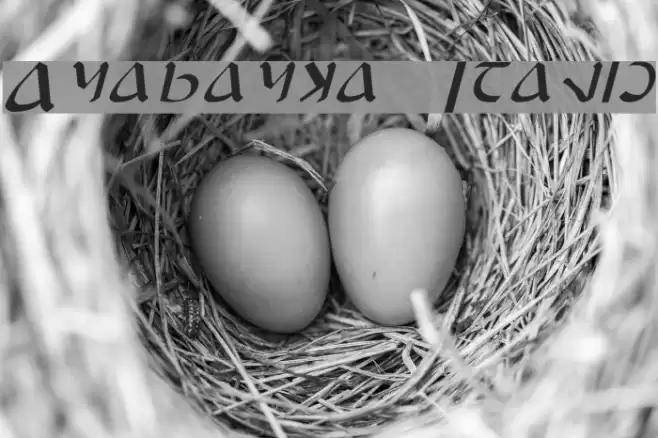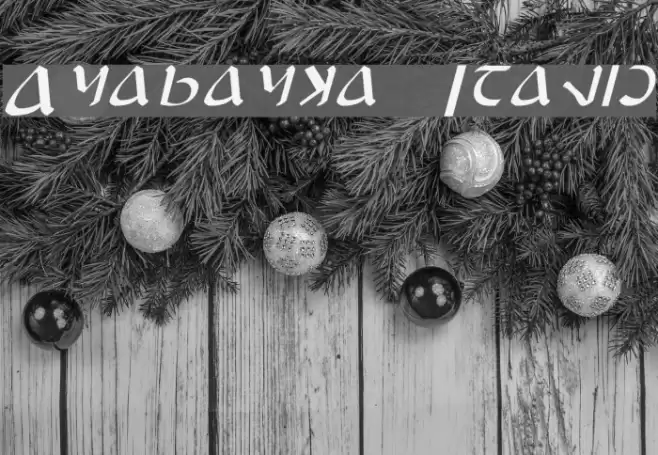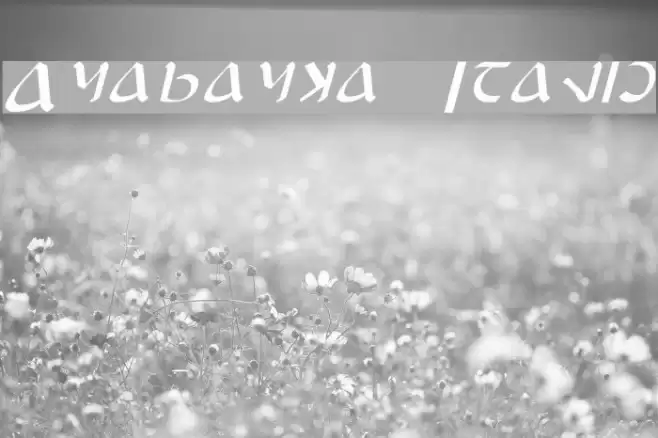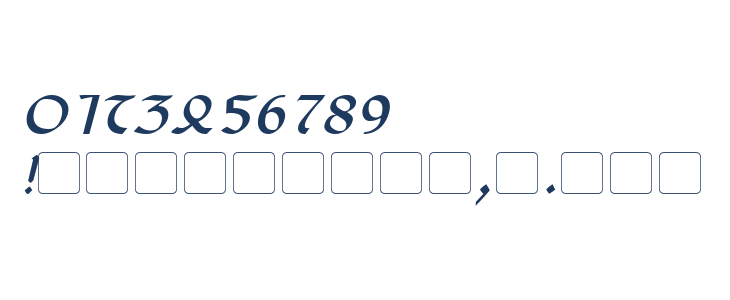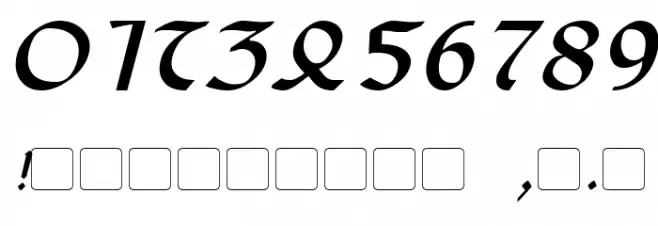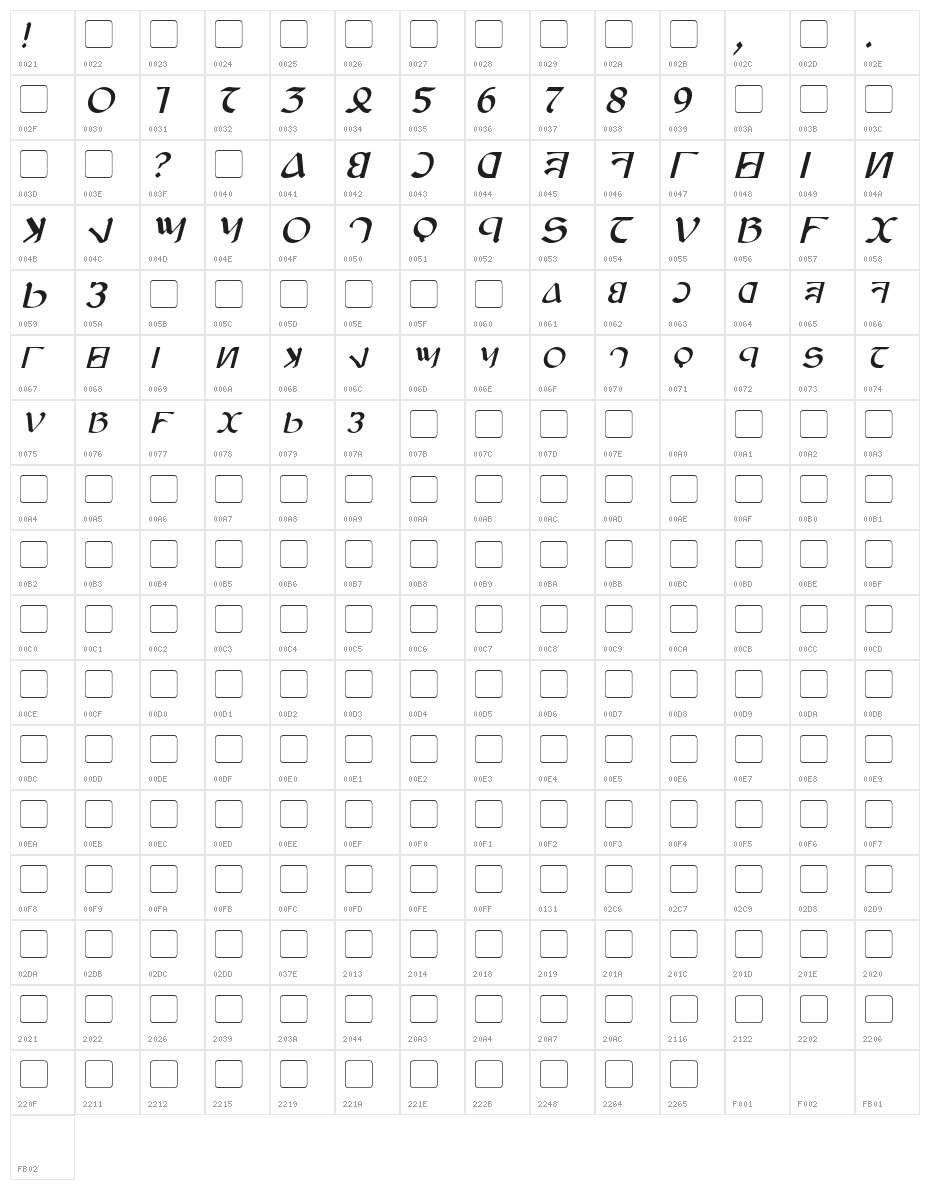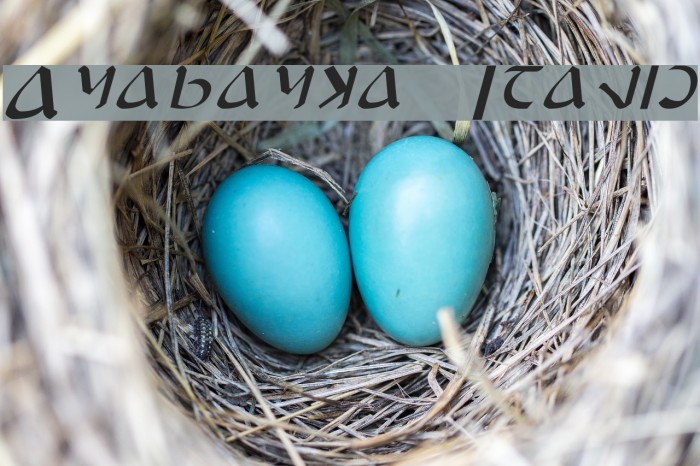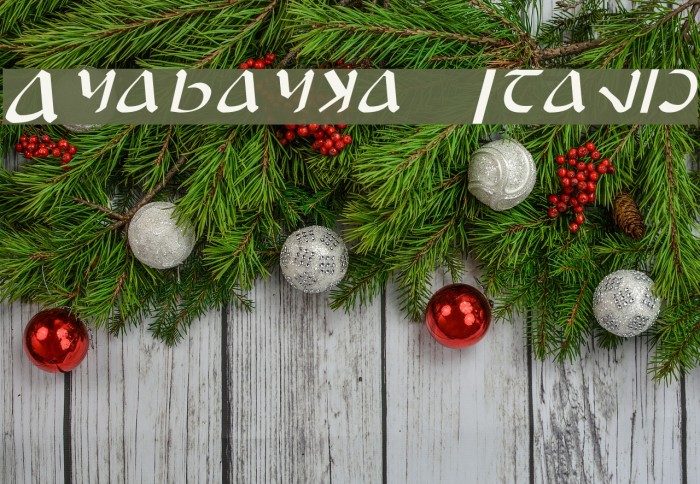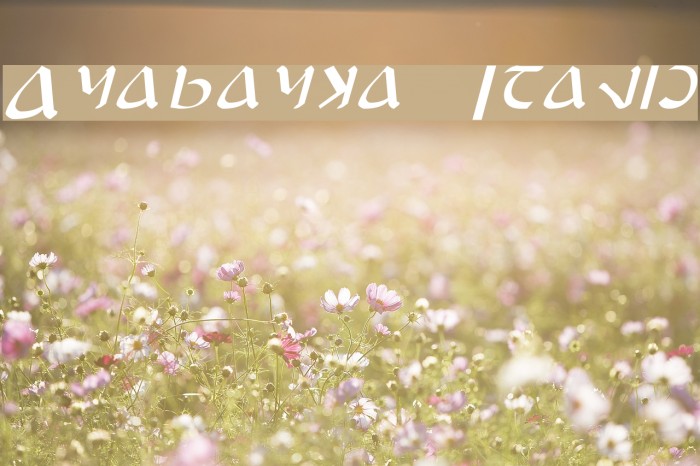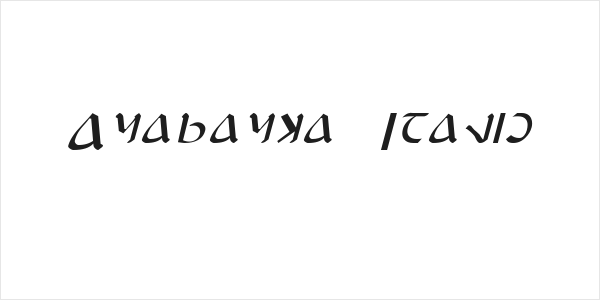
Anayanka Italic Font
Anayanka Italic Description
This font features a dynamic and flowing italic style, characterized by its sharp, angular serifs and distinct slant. The uppercase letters exhibit a strong presence with their bold strokes and unique geometric shapes, while the lowercase letters maintain a consistent rhythm with a slightly more delicate touch. The numbers are styled to match the overall aesthetic, providing a cohesive look across all characters. Special characters are designed with the same attention to detail, ensuring they blend seamlessly with the rest of the font. The overall appearance is both modern and artistic, making it suitable for creative and expressive design projects.
A dynamic italic font with sharp serifs and a modern, artistic style from Uncategorized fonts.